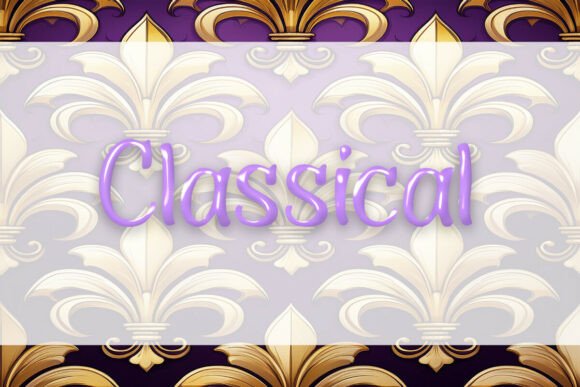
Discover the Timeless Elegance of Classical Font
In the world of typography, few fonts evoke the sense of tradition, luxury, and sophistication that Classical font embodies. This elegant typeface is characterized by its smooth, balanced structure and clean lines, giving it a timeless aesthetic that transcends fleeting design trends. Whether you’re a designer, crafter, or simply someone who appreciates the art of beautiful typography, Classical font is an excellent choice for projects that demand a sense of refinement and distinction.
What is Classical Font?
Classical font is a typeface that exudes a sense of classic elegance, perfect for projects that require a touch of sophistication and luxury. Its clean lines, balanced structure, and understated refinement make it an ideal choice for designs that need to convey a sense of tradition, heritage, or cultural richness. Unlike ornate or overly decorative fonts, Classical font achieves its distinguished look without excessive ornamentation, making it versatile and easy to pair with other design elements.
Key Characteristics of Classical Font
- Smooth, balanced structure: Classical font features a harmonious balance of curves and lines, creating a sense of visual equilibrium that pleases the eye.
- Clean lines: The font’s clean lines and minimal ornamentation give it a crisp, refined appearance that’s perfect for designs that require a sense of sophistication.
- Timeless aesthetic: Classical font’s classic design ensures that it won’t go out of style anytime soon, making it a wise investment for designers and crafters who want their work to stand the test of time.
Perfect Use Cases for Classical Font
So, what projects are best suited for Classical font? Here are a few ideas to get you started:
- Formal event invitations: Whether you’re planning a wedding, gala, or black-tie event, Classical font is an excellent choice for creating elegant, sophisticated invitations that set the tone for a refined experience.
- Sophisticated branding: If you’re looking to create a luxury brand that exudes refinement and elegance, Classical font is an excellent choice for logos, business cards, and marketing materials.
- High-end product packaging: Classical font is perfect for packaging designs that require a sense of luxury and sophistication, such as premium cosmetics, jewelry, or high-end electronics.
- Book titles and magazine layouts: Add a touch of classic elegance to your book titles, magazine layouts, and distinguished headlines with Classical font.
- Designs that require a link to heritage or cultural richness: Whether you’re creating a logo for a historical institution, a cultural organization, or a heritage brand, Classical font is an excellent choice for conveying a sense of tradition and timelessness.
Benefits of Using Classical Font
So, why choose Classical font for your design projects? Here are just a few benefits to consider:
- Authority and credibility: Classical font conveys a sense of authority and credibility, making it perfect for designs that require a sense of trust and reliability.
- Enduring quality: Unlike trendy fonts that may quickly go out of style, Classical font’s timeless design ensures that your work will remain relevant and elegant for years to come.
- Polished, distinguished look: Classical font’s smooth, balanced structure and clean lines give it a polished, distinguished look that’s sure to impress.
In conclusion, Classical font is a timeless typeface that embodies the essence of elegance, sophistication, and tradition. Its smooth, balanced structure, clean lines, and understated refinement make it perfect for projects that demand a sense of luxury, heritage, or cultural richness. Whether you’re a designer, crafter, or simply someone who appreciates beautiful typography, Classical font is an excellent choice for creating stunning designs that convey authority, credibility, and enduring quality.